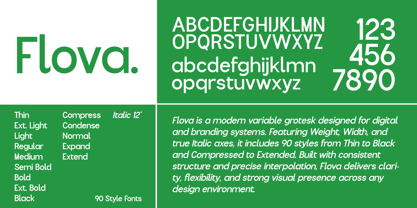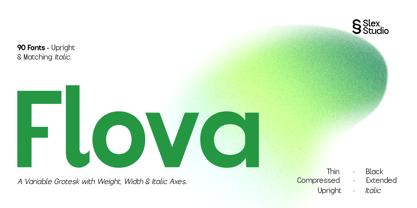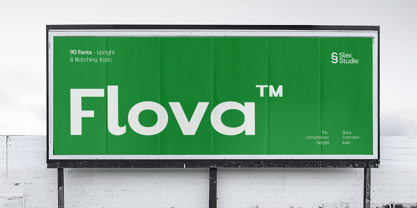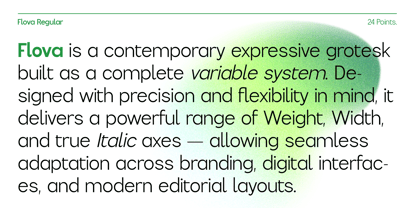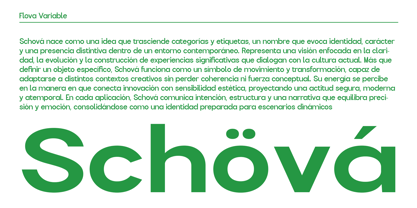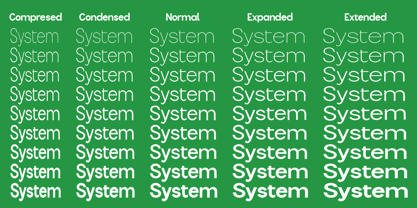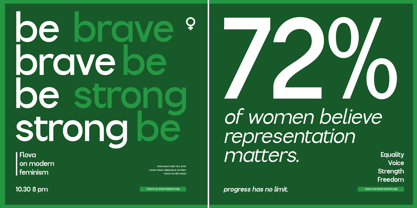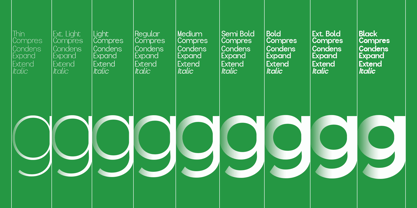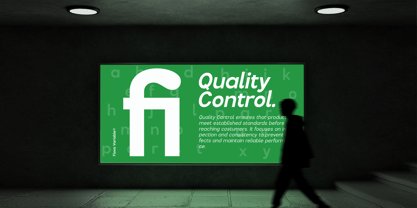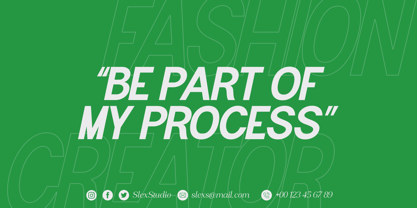
Flova
by Slex Studio
The Flova Font Family was designed by Muhammad Rayyan and published by Slex Studio. Flova contains 90 styles and family package options. More about this family
Flova is a contemporary expressive grotesk built as a complete variable system. Designed with precision and flexibility in mind, it delivers a powerful range of Weight, Width, and true Italic axes — allowing seamless adaptation across branding, digital interfaces, and modern editorial layouts. With 90 styles including upright and matching italic, Flova offers a structured yet dynamic typographic voice. From Thin to Black and Compressed to Extended, every instance maintains consistent proportions and balanced construction, ensuring clarity at any scale. Engineered for scalable identity systems, Flova moves effortlessly between bold display headlines and refined body text. Its clean geometry and controlled expression make it ideal for tech branding, startup ecosystems, UI design, and forward-looking visual identities. One typeface. Complete flexibility.